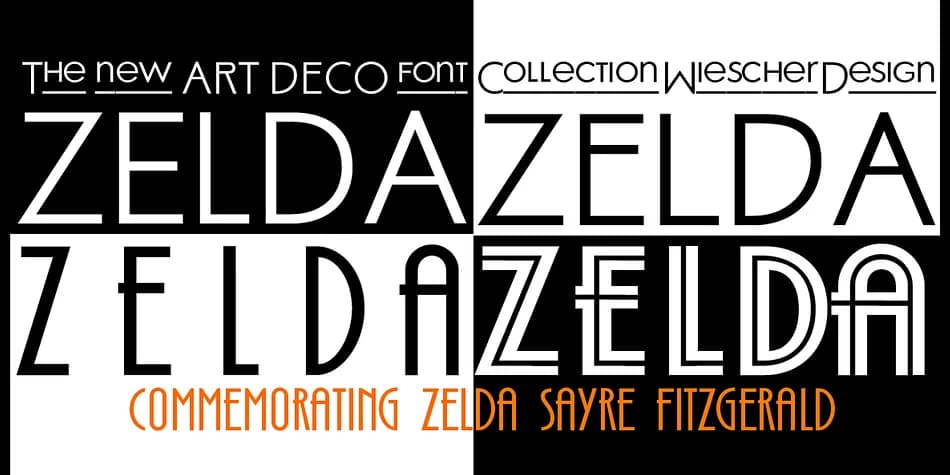
Picture yourself designing an invitation suite for a 1920s-inspired wedding, or crafting art deco signage for a vintage-themed cocktail bar. Zelda, designed by Wiescher-Design, is a decorative typeface family that channels the spirit of that era's boldest graphic innovations. Drawing inspiration from the Avant Garde period when designers first began breaking free from traditional serif conventions, this font captures the geometric exuberance and understated glamour of early twentieth-century modernism.
Zelda works beautifully for luxury brand packaging, art deco book covers, Gatsby-themed party stationery, and upscale restaurant menus. The family includes six variants spanning Normal, Capital-Ligatures, High-Strung-Caps, Narrow-Inline-Caps, and Small-Caps-Up styles, giving you genuine flexibility to match nearly any layout need. All 610 glyphs support the full range of Latin languages, with tabular numbers, old style figures, and fraction support built in.
What makes Zelda particularly useful is how legible it remains at large display sizes while maintaining all those decorative nuances. The variety of weights and cap styles means you can establish visual hierarchy without switching fonts. Find Zelda on Creative Fabrica and bring that sophisticated 1920s energy to your next design.
Zelda Font is a decorative font that shines as a display or heading face. Pair it with a clean sans-serif or serif font for body text β the contrast creates a clear hierarchy while the two styles stay balanced and easy to read.